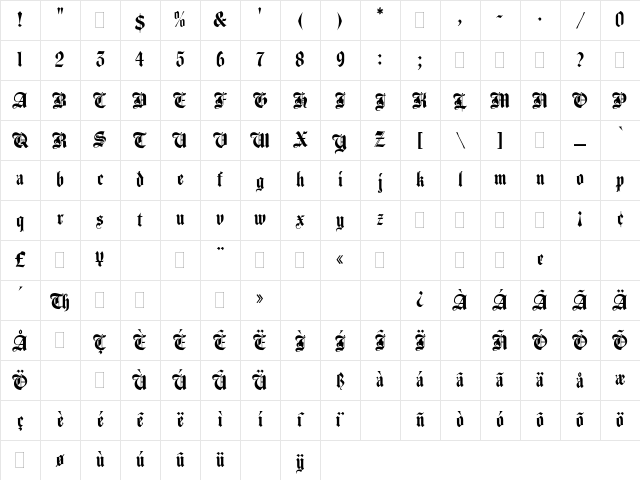
Complete AgincourtPlain Regular glyph index. Displaying only characters natively supported by AgincourtPlain Regular font.
AgincourtPlain is a composed and adaptable typeface that performs quietly and consistently across a wide range of design contexts.